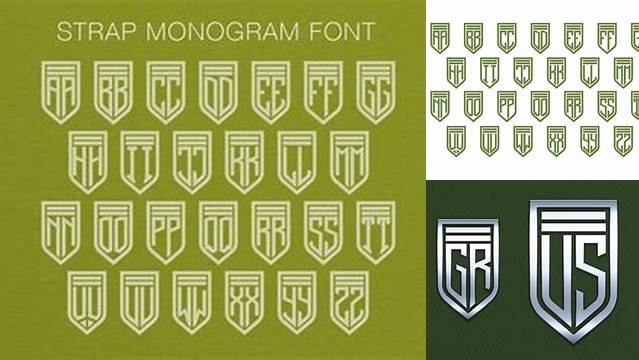
Strap Monogram Solid Font: Free Download & Creative Uses
Hey guys! Ever been on the hunt for that perfect font to give your designs a touch of class and personality? Well, today we're diving deep into the world of the strap monogram solid font, and the best part? You can find a free download! Let's explore what makes this font so special, how you can use it, and where to snag it without breaking the bank.
1. Understanding the Allure of Strap Monogram Fonts
So, what exactly is it about strap monogram fonts that makes them so appealing? These fonts, characterized by their interconnected, ribbon-like designs, are ideal for creating sophisticated monograms. A strap monogram solid font provides a modern twist on the classic monogram, making it versatile for various applications. Think logos, wedding invitations, personalized gifts, and more. The clean, bold lines of a solid font give it a contemporary edge, ensuring it stands out while maintaining an air of timeless elegance. The appeal lies in its ability to transform simple initials into something visually striking and memorable.
2. Where to Find Free Strap Monogram Solid Fonts
3. Creative Uses for Strap Monogram Solid Fonts
Okay, you've got your hands on a free strap monogram solid font; now what? The possibilities are endless! Let's brainstorm some creative uses. For starters, think about branding. These fonts are perfect for creating unique logos for businesses, especially those in fashion, beauty, or lifestyle industries. They also shine in personal branding, adding a touch of sophistication to business cards and social media profiles. Wedding invitations and stationery are another fantastic application. Envision elegant monograms on invitations, save-the-dates, and thank-you cards. Furthermore, consider using the font for personalized gifts. Imagine a custom mug, tote bag, or phone case adorned with a stylish monogram. The strap monogram solid font can also be used in embroidery designs, vinyl cutting projects, and even digital art. The key is to let your imagination run wild and experiment with different combinations and layouts.
4. Designing Logos with Strap Monogram Solid Fonts
The strength of a strap monogram solid font truly shines when crafting logos. These fonts provide a refined and sophisticated touch that's perfect for brands aiming to project an image of elegance and class. Imagine a high-end fashion boutique using an intertwined monogram to represent its brand identity. The clean lines and solid form ensure the logo remains legible even at smaller sizes, a crucial factor for versatile branding. When designing logos, consider the overall aesthetic you want to achieve. A strap monogram font can be combined with other font styles to create a balanced and visually appealing design. For instance, pair a monogram with a simple sans-serif font for the company name to achieve a modern yet classic look. Experiment with different color palettes and layouts to find the perfect combination that reflects your brand's personality.
5. Enhancing Wedding Invitations with Monogram Fonts
Wedding invitations are all about creating a memorable first impression, and a strap monogram solid font can help you achieve just that. The intricate, interwoven design adds a touch of romance and sophistication, setting the tone for a beautiful celebration. Imagine elegant monograms gracing the top of your invitations, creating a focal point that captures attention. These fonts can be used not only for the couple's initials but also for other decorative elements, such as borders and headings. Consider embossing or letterpressing the monogram for an extra touch of luxury. The solid font style ensures that the design stands out clearly, even on textured paper. To complement the monogram, choose a classic serif or script font for the body of the invitation. This combination creates a harmonious balance between traditional and contemporary design elements.
6. Personalizing Gifts Using Strap Monogram Fonts
Looking for a way to make your gifts extra special? A strap monogram solid font is the perfect solution. Adding a personalized monogram to a gift shows that you've put thought and effort into creating something unique. Think about customizing items like mugs, phone cases, tote bags, or even clothing with a stylish monogram. This works exceptionally well for occasions like birthdays, anniversaries, or graduations. The beauty of a solid font is that it's easily adaptable to various materials and printing methods. Whether you're using vinyl cutting, embroidery, or direct printing, the clean lines of the font will ensure a crisp and professional result. When selecting a monogram design, consider the recipient's personal style. A simple, understated monogram might be perfect for someone with minimalist tastes, while a more elaborate design could suit someone who loves bold and decorative elements.
7. Monogram Font Styles: A Detailed Comparison
When it comes to monogram fonts, there's a wide variety of styles to choose from. From classic serif fonts to modern sans-serif fonts, each style offers a unique aesthetic. A strap monogram solid font stands out for its interwoven, ribbon-like design, providing a contemporary twist on the traditional monogram. Compared to script fonts, which are often more ornate and flowing, the solid font offers a cleaner, more structured look. This makes it versatile for a wide range of applications. Serif fonts, with their elegant serifs (the small decorative strokes at the end of letters), evoke a sense of tradition and formality. Sans-serif fonts, on the other hand, are more minimalist and modern. The choice of font style depends on the overall design and the message you want to convey. A strap monogram font is an excellent choice when you want to combine sophistication with a modern edge.
8. Integrating Strap Monogram Fonts into Branding Materials
To truly elevate your brand, consider integrating a strap monogram solid font into your branding materials. This includes everything from your logo and website to your business cards and social media profiles. A consistent use of the monogram font will help create a cohesive and recognizable brand identity. When designing your logo, think about how the monogram can be used as a standalone element or combined with your company name. For your website, you can use the monogram font for headings, subheadings, or decorative elements. Business cards are another great opportunity to showcase your stylish monogram. A well-designed business card can leave a lasting impression on potential clients and partners. On social media, use the monogram font in your profile picture or as a watermark on your images. This will help reinforce your brand identity and make your content more visually appealing.
9. Tips for Choosing the Right Strap Monogram Font
Selecting the right strap monogram font can be a game-changer for your design projects. But with so many options available, how do you make the best choice? Start by considering the overall aesthetic you want to achieve. Do you want something classic and elegant, or modern and bold? The strap monogram font should complement the rest of your design elements and reflect the personality of your brand or project. Pay attention to the font's readability. While decorative fonts can be visually appealing, it's important to ensure that the monogram is still easy to read. Consider the font's scalability. A solid font should look good at both large and small sizes. Test the font in different applications before making a final decision. Finally, don't be afraid to experiment. Try out different fonts and combinations until you find the perfect fit.
10. Exploring Alternatives to Strap Monogram Fonts
While strap monogram solid fonts are undeniably stylish, it's always a good idea to explore alternatives to ensure you're making the best choice for your project. If you're looking for something more traditional, consider classic serif monogram fonts like Times New Roman or Garamond. These fonts exude elegance and timelessness. For a more modern look, sans-serif fonts like Helvetica or Arial are great options. These fonts are clean, simple, and versatile. Script fonts, with their flowing, handwritten style, can add a touch of romance and whimsy. However, they may not be as readable as other font styles. Another alternative is to create a custom monogram using design software like Adobe Illustrator or Photoshop. This allows you to have complete control over the design and create something truly unique. Ultimately, the best alternative depends on your specific needs and preferences. Experiment with different options until you find the perfect fit.
11. The History and Evolution of Monogram Fonts
Monograms have a rich history that dates back centuries. Originally used by royalty and the wealthy to mark possessions, monograms have evolved over time to become a popular form of personal expression. In the past, monograms were often hand-drawn or engraved, reflecting the craftsmanship of the era. As printing technology advanced, monogram fonts became more widely available. Early monogram fonts were often based on traditional serif styles, reflecting the prevailing aesthetic of the time. In the 20th century, modernism brought a shift towards simpler, more geometric designs. This led to the development of sans-serif monogram fonts. Today, there's a vast array of monogram fonts to choose from, ranging from classic to contemporary. The strap monogram solid font represents a modern take on the traditional monogram, combining the elegance of intertwined letters with a clean, bold design.
12. Understanding Font Licensing for Free Downloads
When downloading free fonts, it's crucial to understand the licensing terms. Font licenses dictate how you can use the font, whether it's for personal or commercial projects. Some free fonts are released under open-source licenses, which allow you to use the font for any purpose without restriction. However, many free fonts come with more limited licenses. These licenses may restrict commercial use, meaning you can only use the font for personal projects. Other restrictions may include limitations on modifying or redistributing the font. Always read the licensing agreement carefully before using a free font. If you're unsure about the terms, it's best to contact the font designer or the website where you downloaded the font. Using a font without the proper license can lead to legal issues, so it's always better to err on the side of caution.
13. Step-by-Step Guide to Downloading and Installing Monogram Fonts
Downloading and installing monogram fonts is a straightforward process, but it's important to follow the steps carefully to ensure everything works correctly. First, find a reputable website that offers free monogram fonts. Dafont, FontSpace, and Creative Fabrica are good options. Once you've found a font you like, click the download button. The font will typically be downloaded as a ZIP file. Extract the contents of the ZIP file to a folder on your computer. Inside the folder, you'll find the font file, which usually has a .TTF or .OTF extension. To install the font on Windows, right-click the font file and select "Install." On macOS, double-click the font file, and then click the "Install Font" button. The font will now be installed on your system and available for use in your design software. If you're having trouble installing the font, consult the documentation that came with the font or search for tutorials online.
14. Utilizing Strap Monogram Fonts in Digital Marketing
In the realm of digital marketing, a strap monogram solid font can add a touch of sophistication and brand recognition. Think about using this stylish font in your social media graphics, website headers, and email marketing campaigns. Consistency is key when it comes to branding, so incorporating a unique monogram can help customers easily identify your brand. For instance, in social media, a monogram could serve as a watermark on your images, reinforcing brand recognition. Website headers that feature a monogram can create a lasting first impression on visitors. In email marketing, a monogram can add a touch of elegance to your newsletters and promotional materials. Just remember to ensure the font is readable and complements the overall design.
15. Creating Unique Art with Strap Monogram Fonts
The artistic possibilities with a strap monogram solid font are virtually limitless! Consider using the font to create personalized art prints, wall decor, or even digital illustrations. A monogram can serve as the focal point of a piece, adding a touch of elegance and sophistication. For example, you can create a custom art print featuring a person's initials intertwined in a stylish monogram. You can also use the font to create decorative patterns or borders for your artwork. With digital illustrations, a monogram can be integrated into the design to add a personal touch. Experiment with different colors, textures, and layouts to create truly unique and eye-catching pieces.
16. Designing Stationery with Strap Monogram Fonts
Stationery provides a canvas for elegance, and a strap monogram solid font can elevate your personal or professional stationery to new heights. Imagine business cards, letterheads, and notepads adorned with a sophisticated monogram. This touch of personalization can make a lasting impression on clients and colleagues. For business cards, a monogram can be placed in the corner or center, adding a touch of class. Letterheads can feature a monogram at the top, creating a professional and refined look. Notepads can be customized with a monogram on the cover, making them a stylish and personal accessory. When designing your stationery, consider the color palette and paper quality to create a cohesive and visually appealing design.
17. Making T-Shirts with Monogram Fonts
Monogram fonts can be a fun way to personalize t-shirts. A strap monogram solid font provides a modern and stylish way to customize clothing for yourself, friends, or family. You can use the monogram to create personalized gifts, team shirts, or even unique fashion statements. For a simple yet stylish look, place a monogram on the chest or sleeve of the t-shirt. For a bolder design, create a larger monogram that covers the entire front or back of the shirt. Experiment with different colors and textures to create a design that reflects your personal style. Whether you're using heat transfer vinyl, screen printing, or direct-to-garment printing, a monogram can transform a plain t-shirt into a personalized masterpiece.
18. Creating Party Decorations with Monogram Fonts
Elevate your party decor with a personalized touch using strap monogram solid fonts. From banners to cake toppers, monograms can add a special touch to any celebration. Imagine a birthday banner with the birthday person's initials in a stylish monogram. Or consider cake toppers featuring the happy couple's initials for a wedding celebration. Monograms can also be used to personalize party favors, such as stickers, tags, or small gifts. For a cohesive look, use the same monogram font and color scheme throughout your party decorations. Whether you're hosting a birthday party, wedding, or baby shower, monograms can transform your party decor into a memorable and personalized celebration.
19. DIY Projects with Strap Monogram Fonts
Unleash your creativity with DIY projects using strap monogram solid fonts. From home decor to personalized gifts, the possibilities are endless. Imagine creating a custom welcome mat with your family's initials in a stylish monogram. Or consider personalizing throw pillows with monograms to add a touch of elegance to your living room. Monograms can also be used to customize storage containers, picture frames, or even furniture. With a little imagination and some basic crafting skills, you can transform everyday items into personalized treasures with the help of a strap monogram solid font.
20. Monogram Fonts for Scrapbooking
Scrapbooking is all about preserving memories, and a strap monogram solid font can add a personal touch to your scrapbook pages. Use monograms to highlight names, dates, or special events. Imagine creating a title for a scrapbook page with the names of your loved ones in a stylish monogram. Or consider using monograms to create decorative borders or embellishments. You can also use monograms to personalize photo mats or journaling cards. Whether you're creating a scrapbook for yourself or as a gift, monograms can help you tell your story in a unique and memorable way.
21. Optimizing Monogram Designs for Print
When creating monogram designs for print, it's crucial to optimize your designs to ensure they look their best. A strap monogram solid font offers clean lines, but proper optimization ensures clarity and sharpness in print. Start by using high-resolution images to prevent pixelation. When using design software, set the resolution to at least 300 DPI (dots per inch) for print projects. Pay attention to color modes. For print, use CMYK (cyan, magenta, yellow, and key/black) color mode rather than RGB (red, green, blue). This will ensure accurate color reproduction. When saving your designs, choose a file format that supports high-resolution printing, such as PDF, TIFF, or JPEG with maximum quality settings. By following these optimization tips, you can ensure that your monogram designs look stunning in print.
22. Ensuring Readability with Strap Monogram Fonts
Readability is paramount when working with strap monogram solid fonts. While these fonts offer a sophisticated look, ensuring the monogram is easy to read is crucial for effective communication. Start by choosing a font size that is appropriate for the application. A larger font size will generally improve readability, especially for intricate monogram designs. Consider the contrast between the font color and the background color. A strong contrast will make the monogram stand out and improve readability. Avoid using overly complex or ornate monogram designs, as these can be difficult to decipher. Finally, test your monogram designs with different audiences to ensure they are easy to read and understand. By prioritizing readability, you can ensure that your strap monogram solid fonts are both stylish and effective.
23. Pairing Strap Monogram Fonts with Other Fonts
The art of font pairing involves combining different fonts to create a harmonious and visually appealing design. When working with strap monogram solid fonts, it's essential to choose complementary fonts that enhance the overall look and feel. A good rule of thumb is to pair a decorative font, like a strap monogram solid font, with a simpler, more readable font. For example, you can pair a strap monogram solid font with a sans-serif font like Helvetica or Arial for a clean and modern look. Alternatively, you can pair it with a serif font like Times New Roman or Garamond for a more traditional and elegant look. Experiment with different font combinations to find the perfect balance and create a design that reflects your personal style. Remember to consider the font sizes, weights, and spacing to ensure a cohesive and visually pleasing design.
24. Monogram Font Generators and Online Tools
Numerous online tools and monogram font generators can assist you in creating custom monogram designs quickly and easily. These tools often provide a wide range of font styles, layouts, and customization options. Some popular monogram font generators include Monogram Maker, Markable, and Canva. These tools allow you to enter your initials, select a font style, and customize the colors and layout. Some tools even offer pre-designed monogram templates that you can customize to your liking. While these tools can be a convenient way to create monogram designs, it's essential to ensure that you have the necessary licenses for the fonts used. Also, remember that the best results often come from more professional design software if you need high-resolution output for printing.
25. Advanced Techniques for Customizing Monogram Fonts
For those looking to take their monogram designs to the next level, several advanced techniques can be employed to customize monogram fonts. These techniques often involve using professional design software like Adobe Illustrator or Photoshop. One technique is to create custom letterforms by modifying existing fonts or drawing your letters from scratch. This allows you to create truly unique and personalized monogram designs. Another technique is to add decorative elements to the monogram, such as flourishes, borders, or textures. You can also experiment with different color gradients, shadows, and effects to create a more visually dynamic monogram. Remember to maintain readability and ensure that the customizations enhance the overall design.
26. Common Mistakes to Avoid When Using Monogram Fonts
While monogram fonts can add a touch of elegance to your designs, there are several common mistakes to avoid. One common mistake is using a monogram font that is too difficult to read. Intricate and ornate monogram designs can be visually appealing, but they can also be challenging to decipher. Another mistake is using a monogram font that is not appropriate for the application. For example, using a formal monogram font for a casual event can create a mismatch. Additionally, avoid using too many different fonts in your design. Sticking to a limited number of fonts will create a more cohesive and visually pleasing look. Always double-check your monogram designs for errors, such as misspelled names or incorrect initials. By avoiding these common mistakes, you can ensure that your monogram designs are both stylish and effective.
27. The Future of Monogram Font Trends
The world of monogram fonts is constantly evolving, with new trends and styles emerging all the time. One trend is the increasing popularity of minimalist and geometric monogram designs. These designs offer a clean and modern look that is perfect for contemporary brands and applications. Another trend is the use of hand-drawn and script monogram fonts, which add a personal and artistic touch to designs. There is also a growing interest in incorporating vintage and retro monogram fonts, which evoke a sense of nostalgia and timelessness. As technology advances, we can expect to see even more innovative and creative monogram font designs in the future. Whether you prefer classic or contemporary styles, there's a monogram font out there to suit your needs.
28. Monogram Fonts and Accessibility Considerations
When using monogram fonts, it's essential to consider accessibility to ensure that your designs are inclusive and usable by everyone. This includes people with visual impairments or other disabilities. One crucial consideration is ensuring that the monogram is readable and easy to understand. Avoid using overly complex or ornate monogram designs, as these can be difficult to decipher for people with visual impairments. Provide alternative text descriptions for monogram images to allow screen readers to convey the information to users. Also, ensure that the color contrast between the monogram and the background is sufficient for people with low vision. By incorporating accessibility considerations into your monogram designs, you can create a more inclusive and user-friendly experience for everyone.
29. Legal Aspects of Using Free Fonts Commercially
Using free fonts for commercial projects can be tempting, but it's crucial to understand the legal aspects involved. Font licenses dictate how you can use the font, and it's essential to comply with these terms to avoid legal issues. Many free fonts are only licensed for personal use, meaning you cannot use them for commercial purposes without obtaining a commercial license. Using a font without the proper license can result in copyright infringement, which can lead to legal action and financial penalties. Always read the font license carefully before using it for any commercial project. If you're unsure about the licensing terms, it's best to contact the font designer or the website where you downloaded the font. When in doubt, it's always safer to purchase a commercial license to ensure you have the legal right to use the font in your projects.
30. Where to Learn More About Typography and Font Design
If you're interested in learning more about typography and font design, numerous resources are available to expand your knowledge. Online courses and tutorials are a great way to learn the basics of typography, including font anatomy, classification, and pairing. Websites like Skillshare, Udemy, and Coursera offer a wide range of typography courses taught by industry experts. Books on typography and font design can provide a more in-depth understanding of the subject. Some popular books include "The Elements of Typographic Style" by Robert Bringhurst and "Thinking with Type" by Ellen Lupton. Attending workshops and conferences can provide hands-on experience and the opportunity to learn from leading typographers and designers. You can also explore online communities and forums dedicated to typography and font design, where you can connect with other enthusiasts and share your knowledge. By investing in your education, you can develop a deeper appreciation for typography and enhance your design skills.